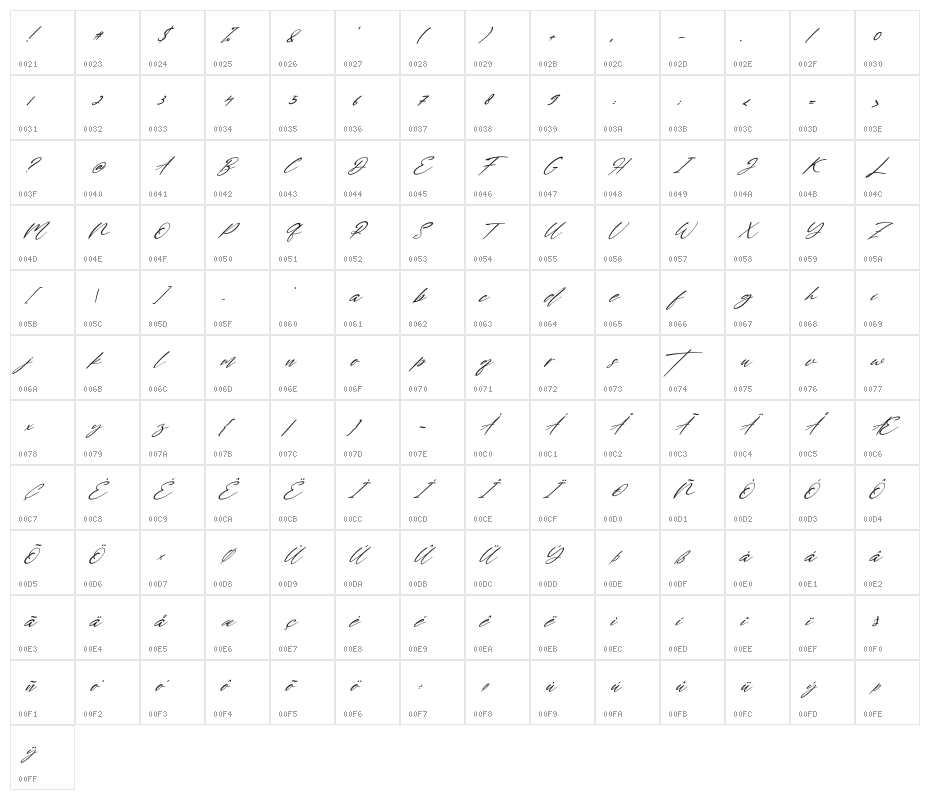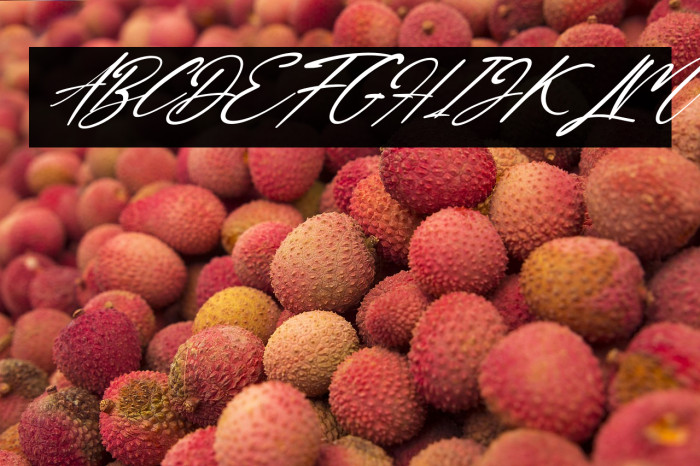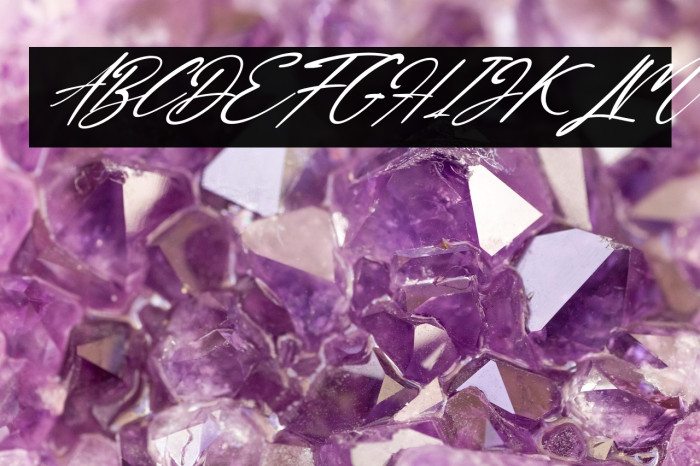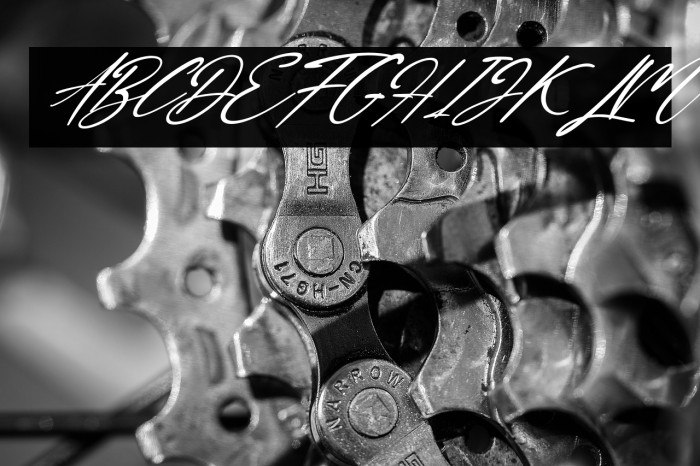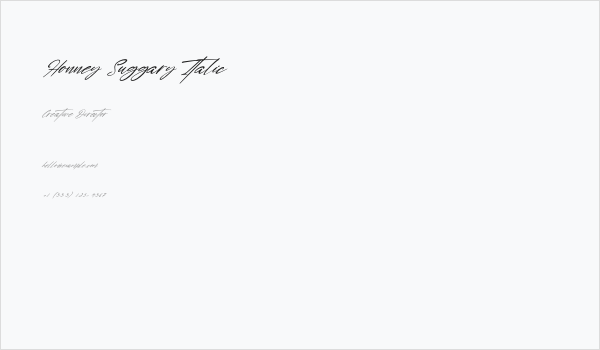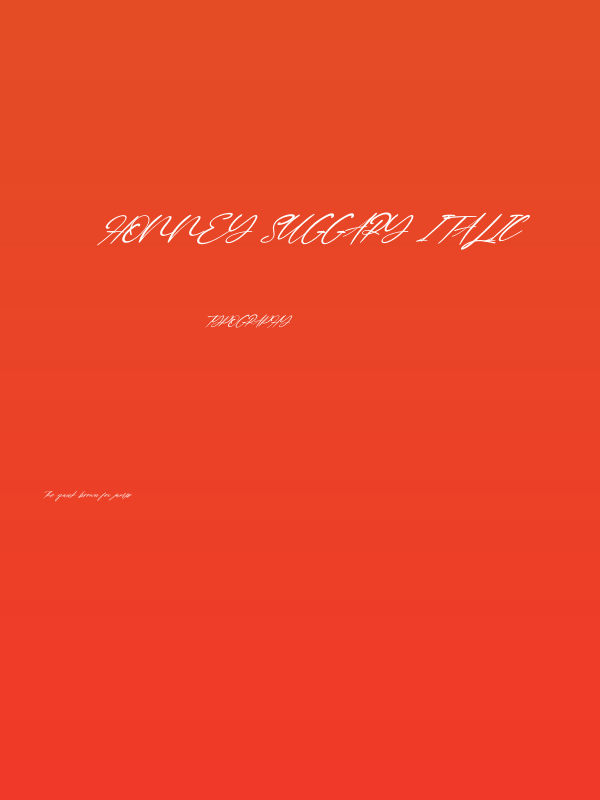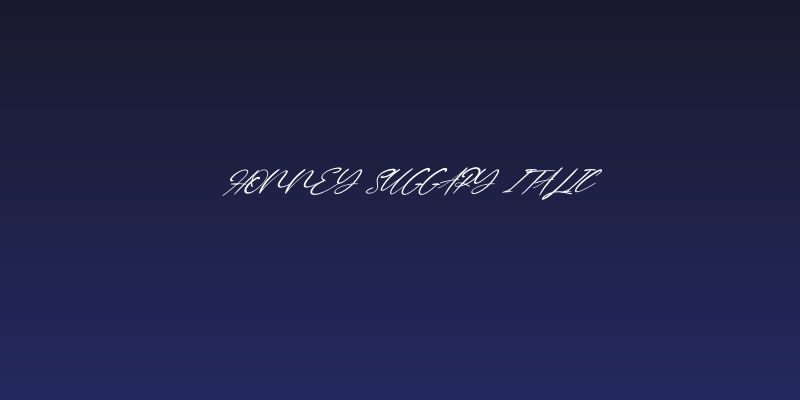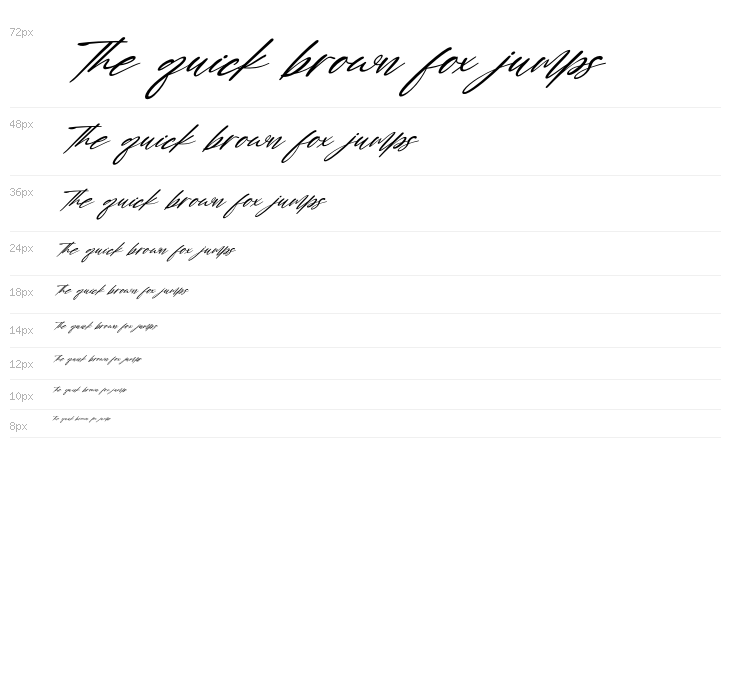
Honney Suggary Italic Font
Honney Suggary Italic Description
This elegant script font features a flowing, cursive style with a sophisticated and artistic flair. The characters are intricately designed with smooth curves and graceful loops, creating a sense of movement and fluidity. The uppercase letters are bold and prominent, while the lowercase letters maintain a delicate balance, offering a harmonious blend of style and readability. The numerals and special characters are crafted with the same attention to detail, ensuring consistency throughout the font. This font exudes a sense of elegance and charm, making it ideal for projects that require a touch of sophistication.